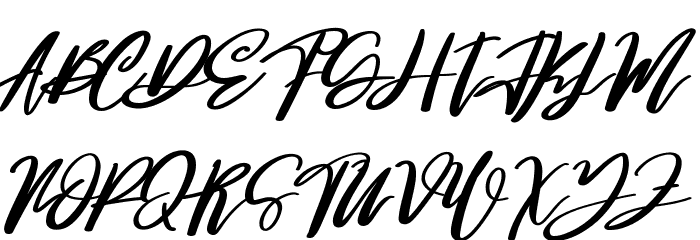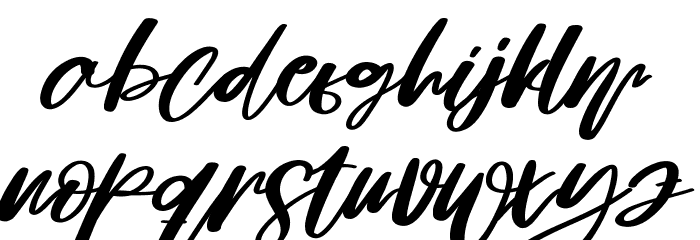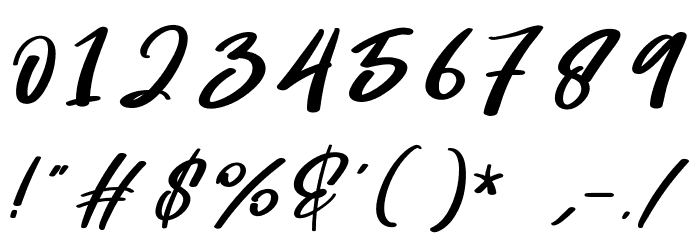
Pennature Font
This font exudes a dynamic and expressive style, characterized by its fluid, cursive script that mimics the elegance of handwritten calligraphy. The letters are interconnected with sweeping strokes, creating a sense of movement and grace. The uppercase letters are bold and prominent, while the lowercase letters maintain a consistent flow, enhancing readability. The numbers and special characters follow the same stylistic cues, ensuring uniformity across all elements. This font's artistic flair makes it ideal for creative projects that require a personal touch.
A dynamic, cursive script font with a handwritten calligraphy style.
- Proposed Projects: Ideal for wedding invitations, greeting cards, branding, and logo design.
- Category: Script
- Character Spacing: Tight
- Use Case: Logos, Headlines, Invitations